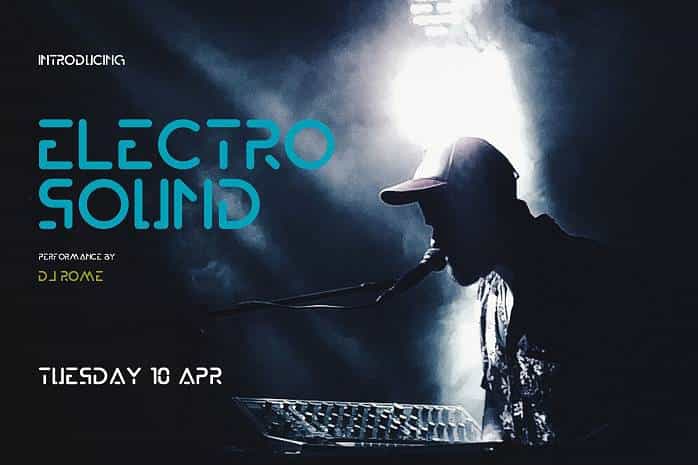
Exodar – created by Rometheme. EXODAR is a modern futuristic typeface with elegant in every single letter. This font looks modern, sci-fi, futuristic, future, readable, stylish, catchy and easy to use. EXODAR is a versatile futuristic typeface, designed by detailed shapes and curves by Rometheme.